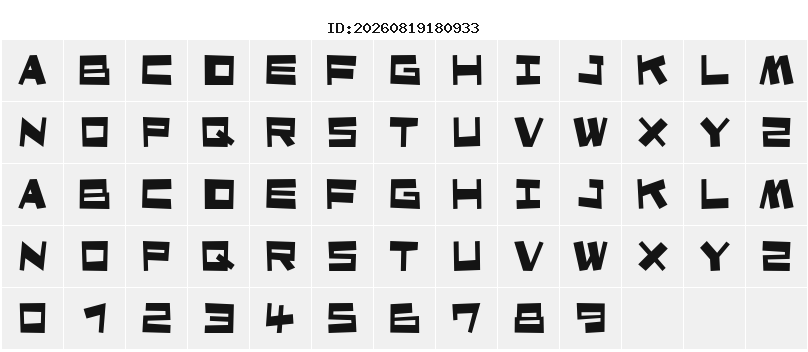
• Font Name: ShotaroV3AL
• Full Font Name: ShotaroV3AL
About ShotaroV3AL.ttf
ShotaroV3AL.ttf is a modern, elegant sans-serif font designed for ultimate readability and visual harmony. Perfect for branding, headlines, web design, and print materials.